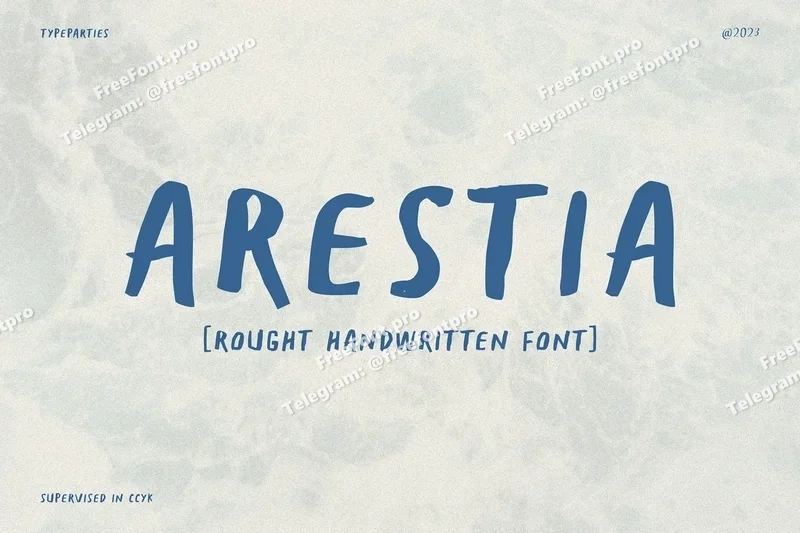
Arestia
Arestia is a rough handwritten display font that combines organic imperfection with bold readability. Its letterforms exhibit irregular stroke dynamics, creating a textured, human-like appearance that emphasizes authenticity and informality. Unlike highly polished geometric typefaces, Arestia retains visible inconsistencies in width and curvature, which mimic the gestural flow of natural handwriting.